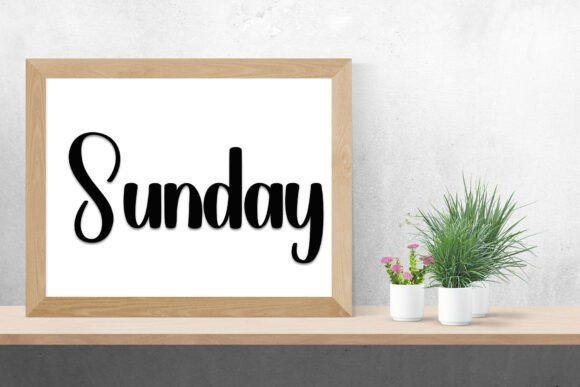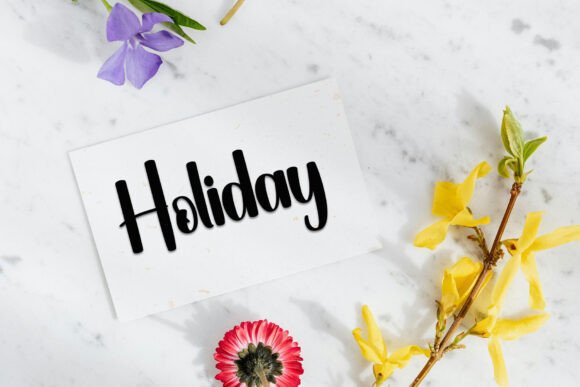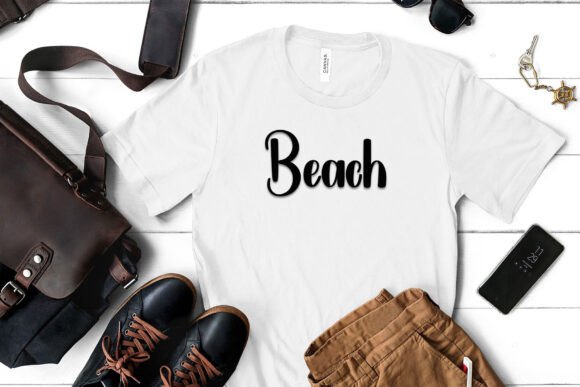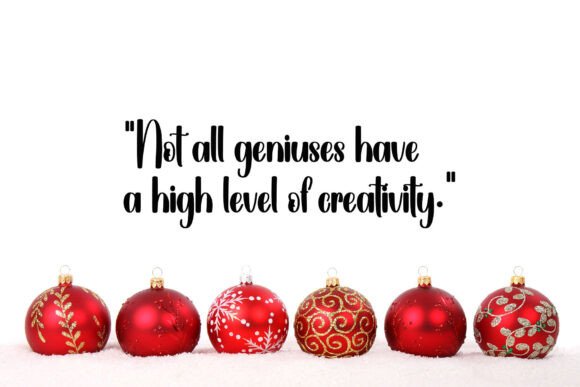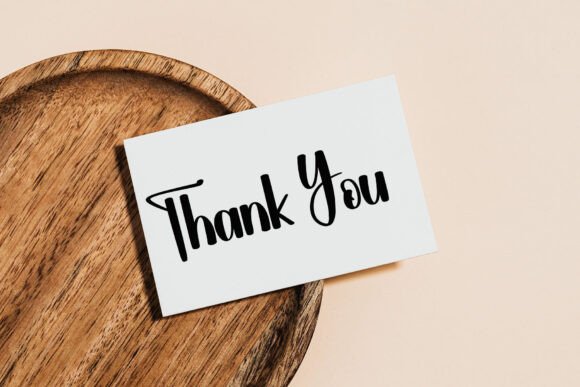
Discover the Timeless Charm of Cherry Font
As designers, we’ve all been there – staring at a blank canvas, trying to bring our creative vision to life. It’s the moment of pure inspiration, where the perfect font can make all the difference. For me, it was the discovery of the Cherry Font that sparked a new wave of creativity. This beautiful handwritten font exudes an elegant touch, making it perfect for any project that requires a personal and sophisticated feel.
With its incredibly distinct and timeless style, the Cherry Font is a valuable asset for any designer looking to add a touch of class to their designs. Whether you’re working on a wedding invitation, a gourmet food label, or a heartfelt greeting card, this font is sure to elevate your project to the next level.
Key Features of Cherry Font
- Unique Characteristics: Cherry Font features a unique blend of modern and classic design elements, with a focus on elegance and sophistication.
- Kerning and Glyphs: Cherry Font includes advanced kerning and glyph arrangements, ensuring precise and beautiful text rendering.
Designer Review: Cherry Font
Overall, I think Cherry Font is a charming and eye-catching choice for designers looking to add a touch of whimsy to their projects. ✨ The font’s unique blend of modern and vintage elements makes it perfect for creating a sense of nostalgia and playfulness.
The font’s versatility is one of its strongest points. It can be used for a wide range of applications, from logos and branding to digital products and print materials. ✨ I particularly love how well it pairs with bold colors and geometric shapes, creating a visually appealing contrast.
- Unique blend of modern and vintage elements
- Highly versatile and suitable for various applications
- Perfect for creating a sense of nostalgia and playfulness
- Some letters may be difficult to read at smaller font sizes
- May not be suitable for formal or professional projects
- Lack of a clear, consistent style guide
- May require additional styling or customization for optimal results
Overall, I would give Cherry Font 4 out of 5 stars. While it has some limitations, its unique charm and versatility make it a great choice for designers looking to add some personality to their projects.
Practical Application Guide: Cherry Font
The Cherry Font is a versatile font that can be used in a variety of contexts, including:
Tips for Getting the Most Out of Cherry Font
To get the most out of the Cherry Font, try the following:
- Pair it with bold and bright colors to create a playful look
- Use it in combination with other fonts to create a unique typography style Alternatives to Cherry Font for Designers
- Choose a warm and inviting color scheme, such as pastel pinks and whites.
- Use Cherry Font for food titles, headings, and subheadings.
- Combine with illustrations of desserts and baking utensils to create a whimsical atmosphere.
- Choose a classic color scheme, such as ivory and gold.
- Use Cherry Font for the wedding invitation’s main text and headings.
- Combine with vintage illustrations of flowers and lace to create a romantic atmosphere.
- Choose a bold and contrasting color scheme, such as black and white.
- Use Cherry Font for the quote and headings.